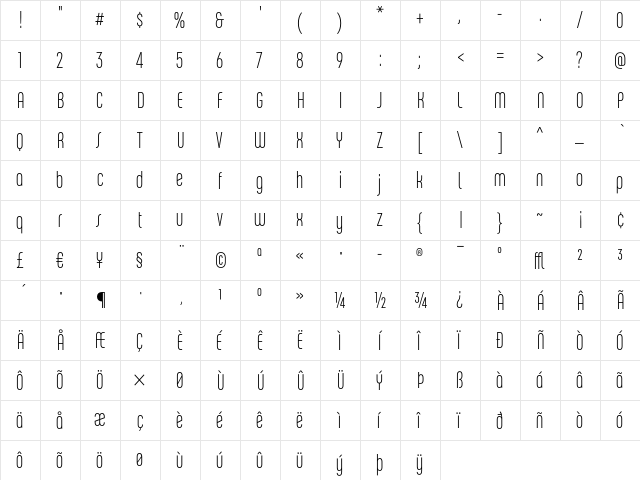
ChaletComprime MilanSeventy Font Preview
ChaletComprime MilanSeventy
ChaletComprime MilanSeventy Font Details
| Style | MilanSeventy |
| Designer | Paul van der Laan/House Industries |
Design Context for ChaletComprime Typeface
ChaletComprime offers clean, dependable letterforms without strong stylistic allegiance, making it a practical choice for designers who need flexibility.